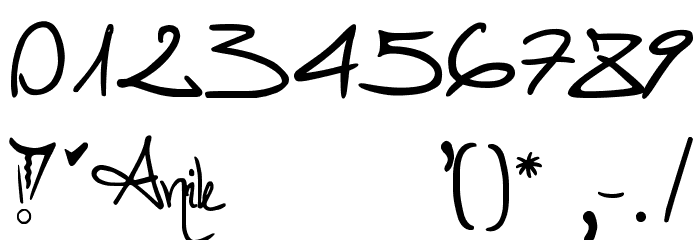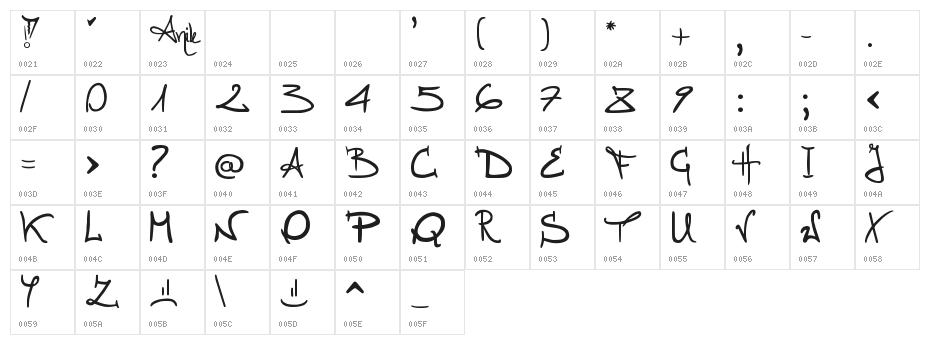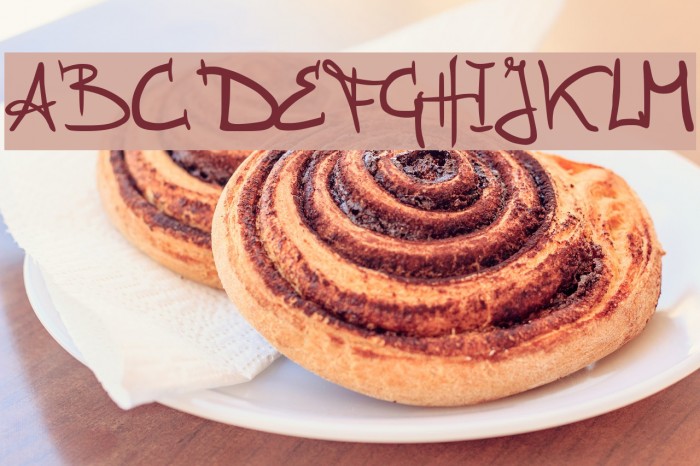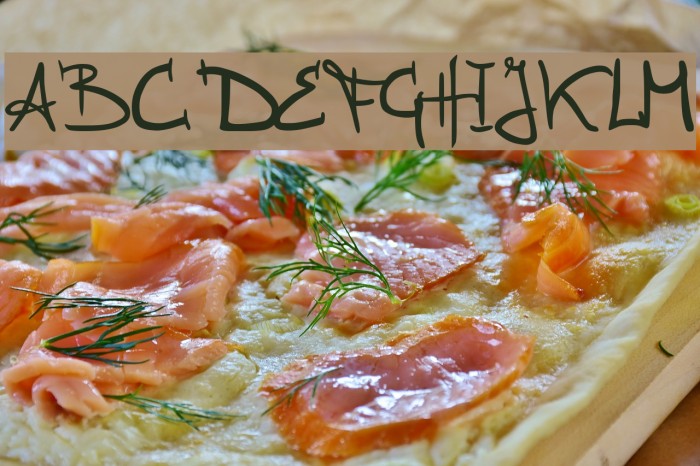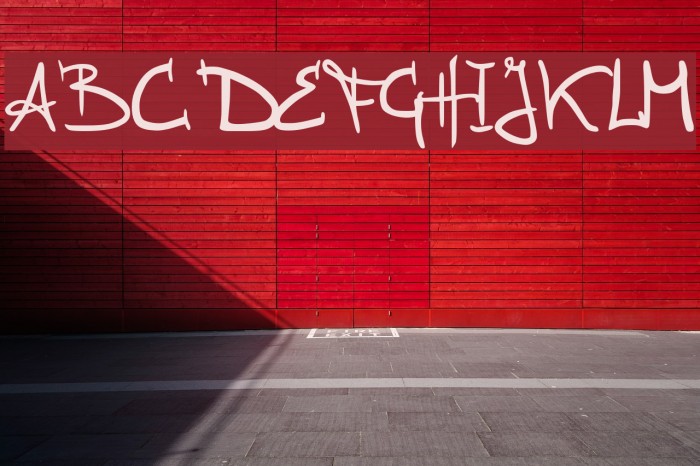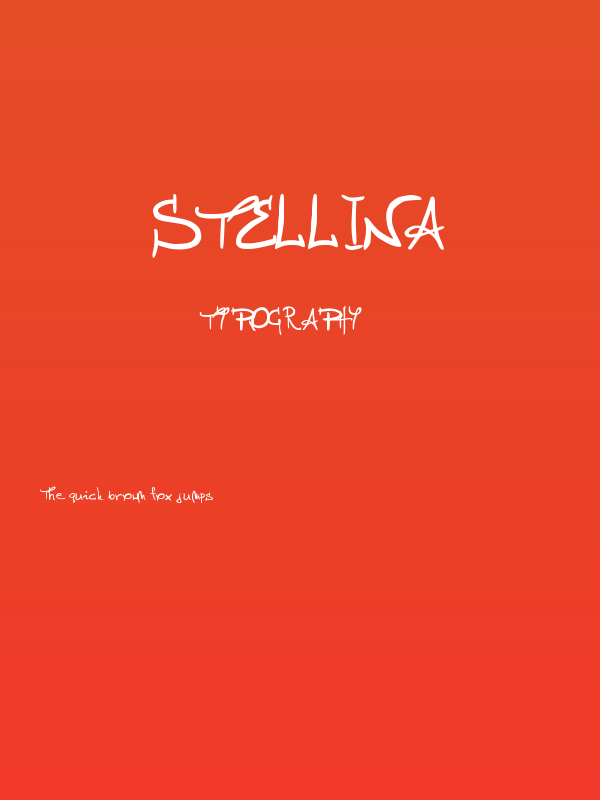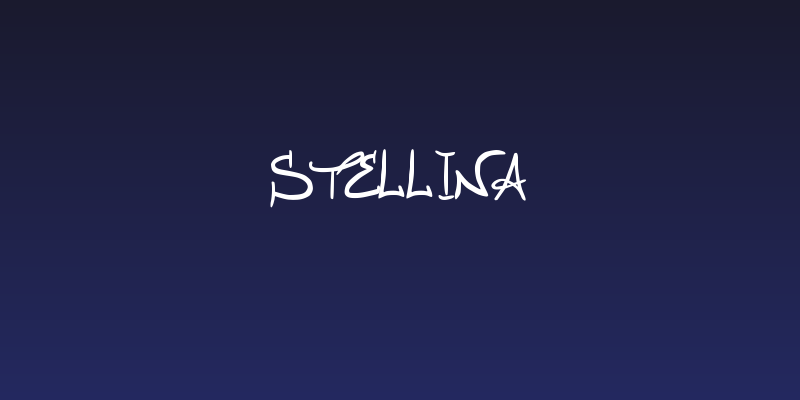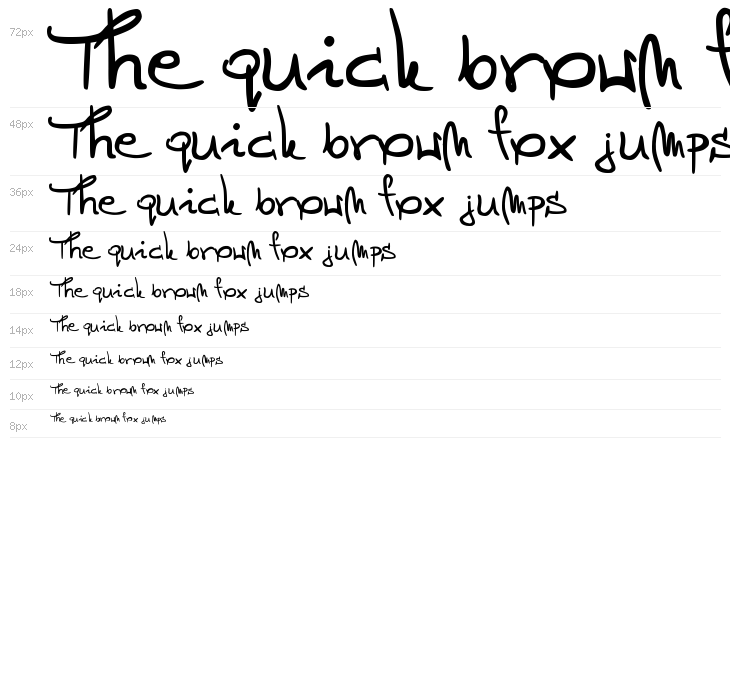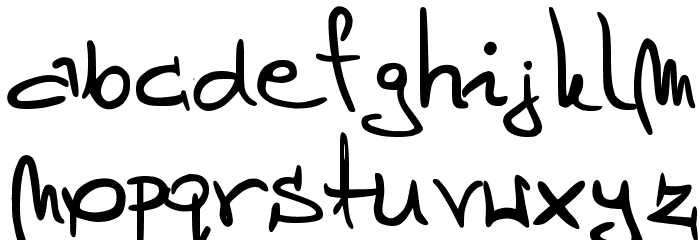
Stellina Font
Stellina Description
This font features a playful and whimsical handwritten style, characterized by its flowing and irregular strokes. The uppercase letters are bold and dynamic, with a slight slant that adds to the casual feel. Lowercase letters maintain a consistent style, with some letters extending below the baseline, enhancing the font's lively appearance. The numbers are equally expressive, with varying stroke thickness that adds a unique touch. Special characters are creatively designed, matching the overall aesthetic. This font's artistic flair makes it suitable for projects that require a personal and informal touch.
| Proposed Projects | Ideal for greeting cards, invitations, children's books, and creative branding projects. |